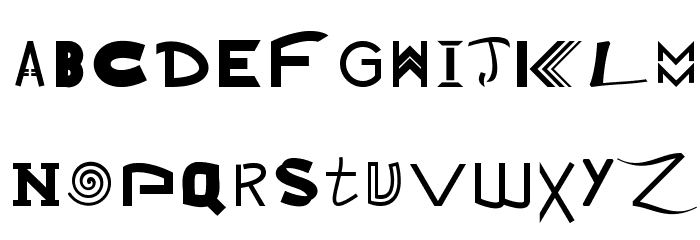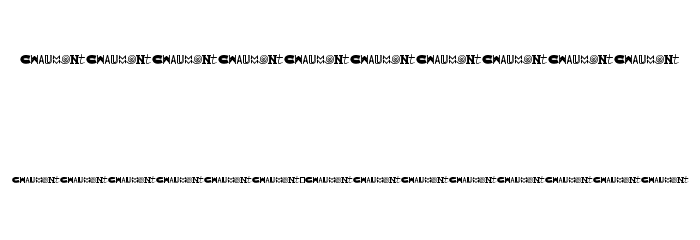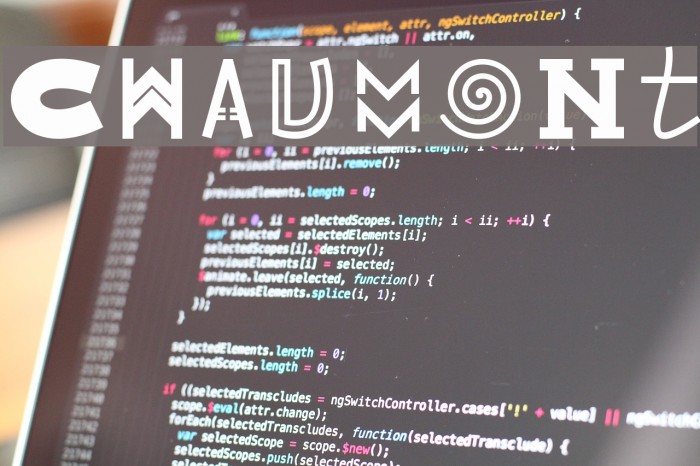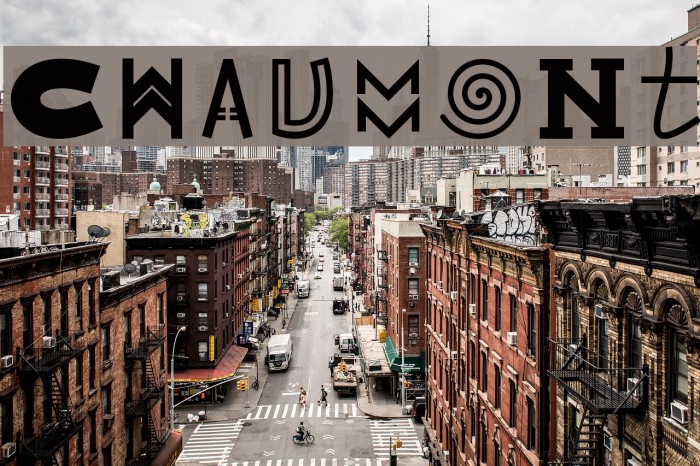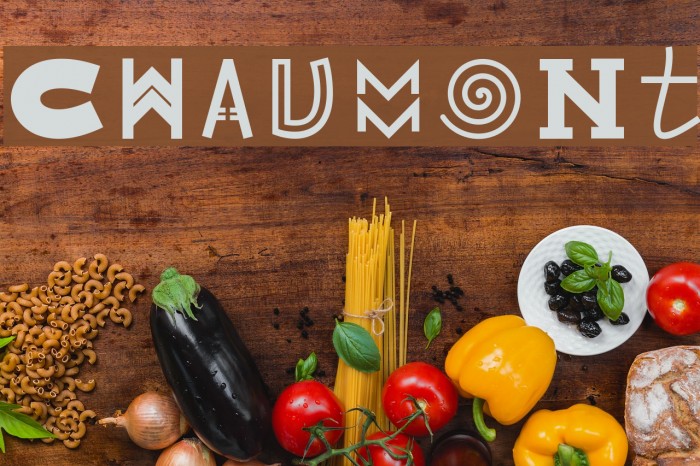
Chaumont Font
This font features a highly decorative and eclectic style, with each character exhibiting unique and artistic elements. The uppercase letters are bold and varied, incorporating geometric shapes, spirals, and abstract forms. The lowercase letters maintain a similar artistic flair, with some characters appearing whimsical and others more structured. The numbers and special characters continue this theme, offering a playful and creative aesthetic. This font is ideal for projects that require a distinctive and eye-catching typeface, such as posters, album covers, or branding materials that aim to stand out.
A decorative and eclectic font with unique, artistic characters.
- Proposed Projects: Ideal for posters, album covers, branding materials, and any project needing a standout typeface.